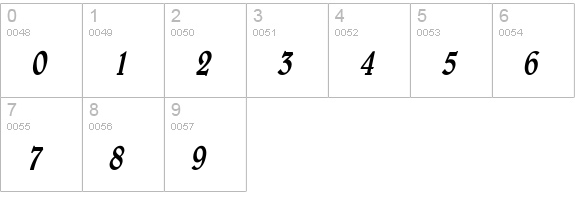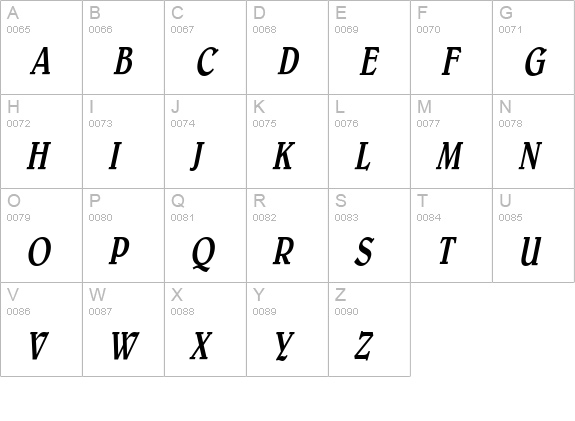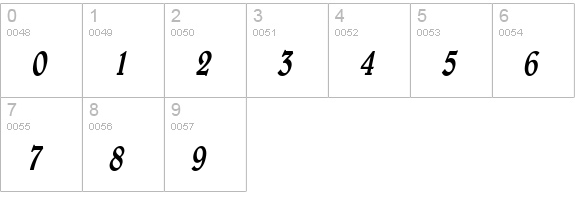
Blew Condensed Italic is a distinctive, condensed-width, italic variant in the Blew typeface family \xE2\x80\x94 well suited to design and typography projects.
Blew Condensed Italic font is a sleek and modern typeface that exudes sophistication and style. Its elegant italic design adds a touch of flair to any project, making it perfect for branding, advertising, and design projects. The condensed style of this font ensures that your text will stand out and make a strong visual impact. What sets Blew Condensed Italic font apart is that it is available for free download at FontsMarket.com. This means that you can easily access this high-quality font and use it in your designs without any cost. Whether you are a graphic designer, a business owner, or a student working on a project, Blew Condensed Italic font is a versatile and stylish choice that will elevate your work to the next level. Download it today and add a touch of sophistication to your designs.